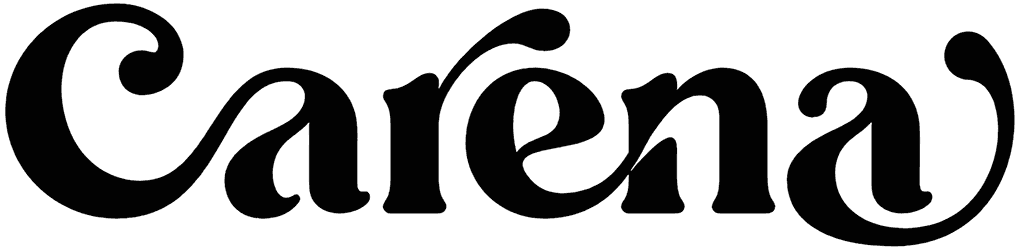
Carena Font
Carena is a sexy font with a chic and classic style. This versatile font with good coverage of characters would provide you with an opportunity to decorate different designs with a style that everyone likes. Don’t miss i…
Carena Font
Carena is a sexy font with a chic and classic style. This versatile font with good coverage of characters would provide you with an opportunity to decorate different designs with a style that everyone likes. Don’t miss it and test it on logotypes, formal presentations, web graphics, or a lot of other the like, and cause them a noble mood.